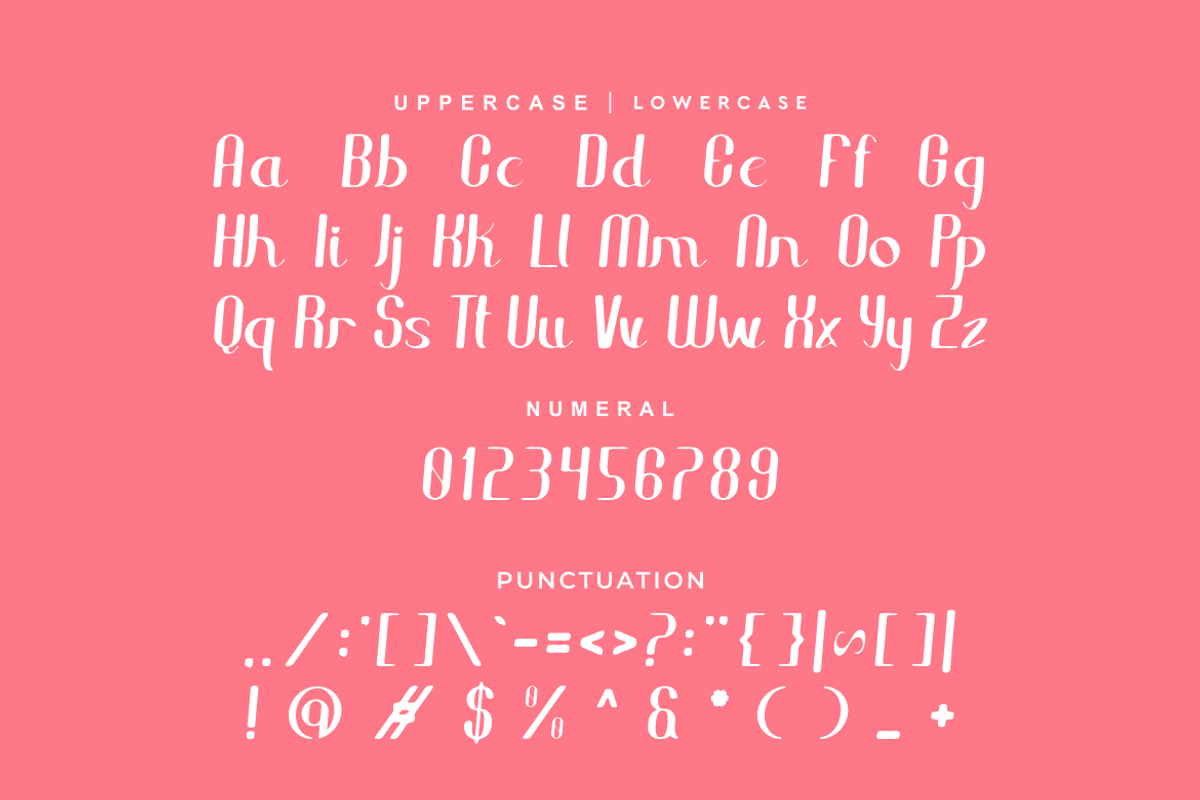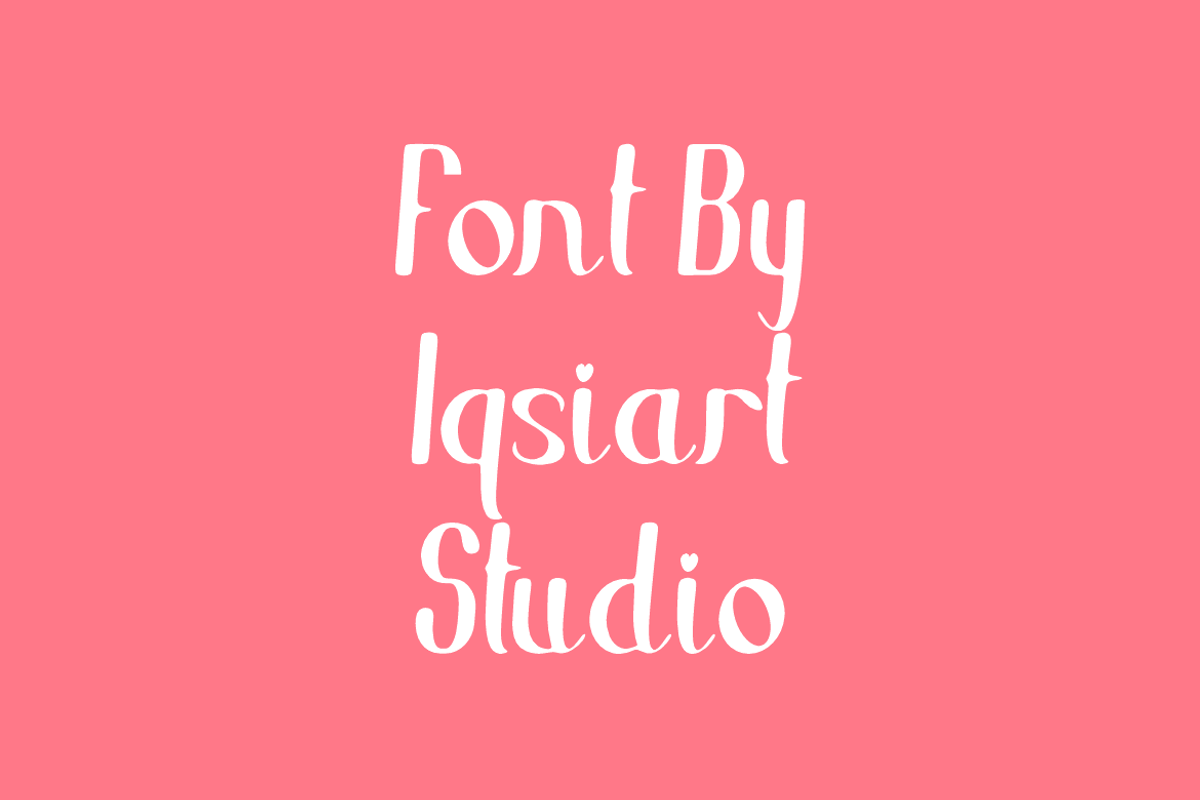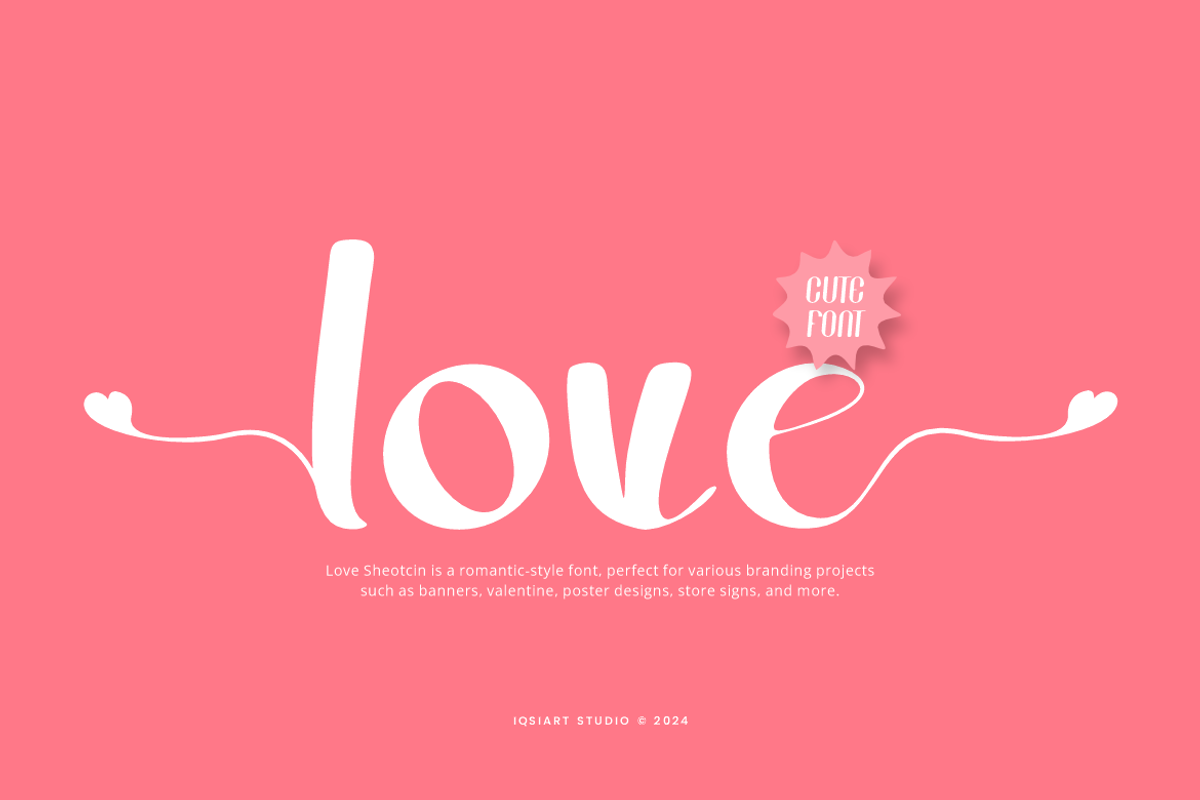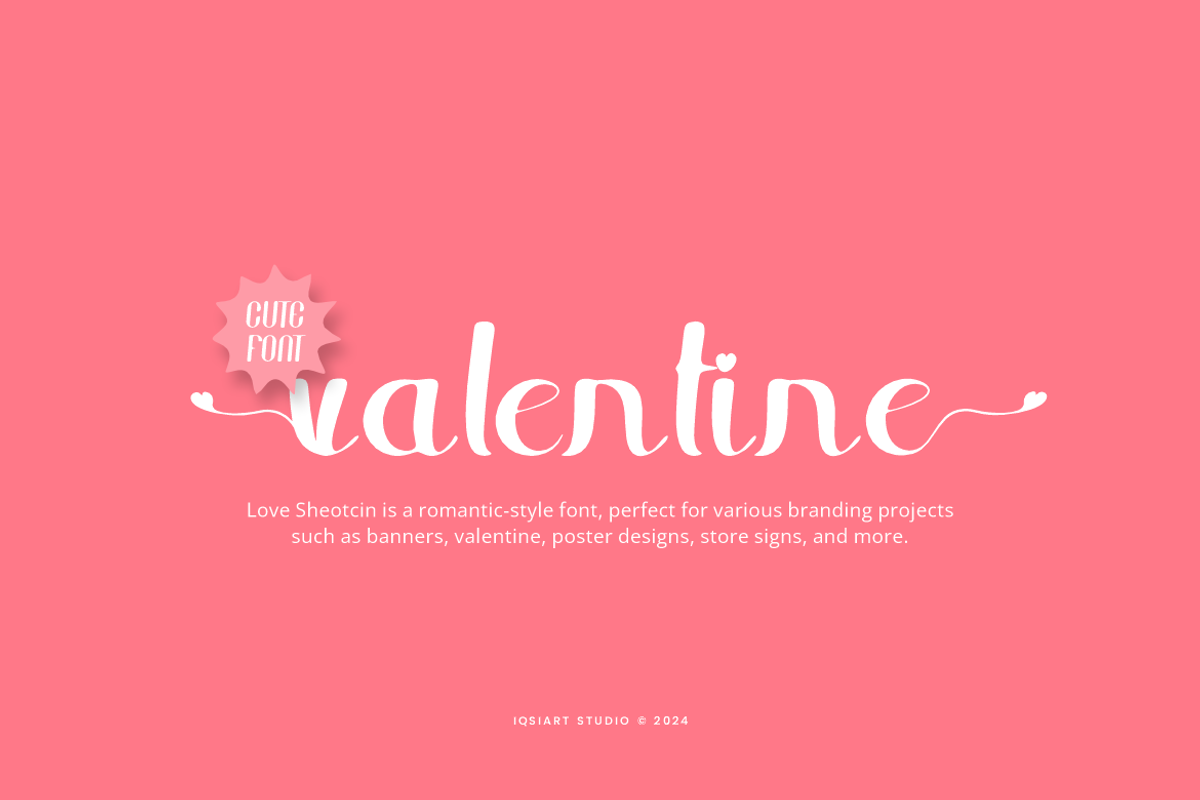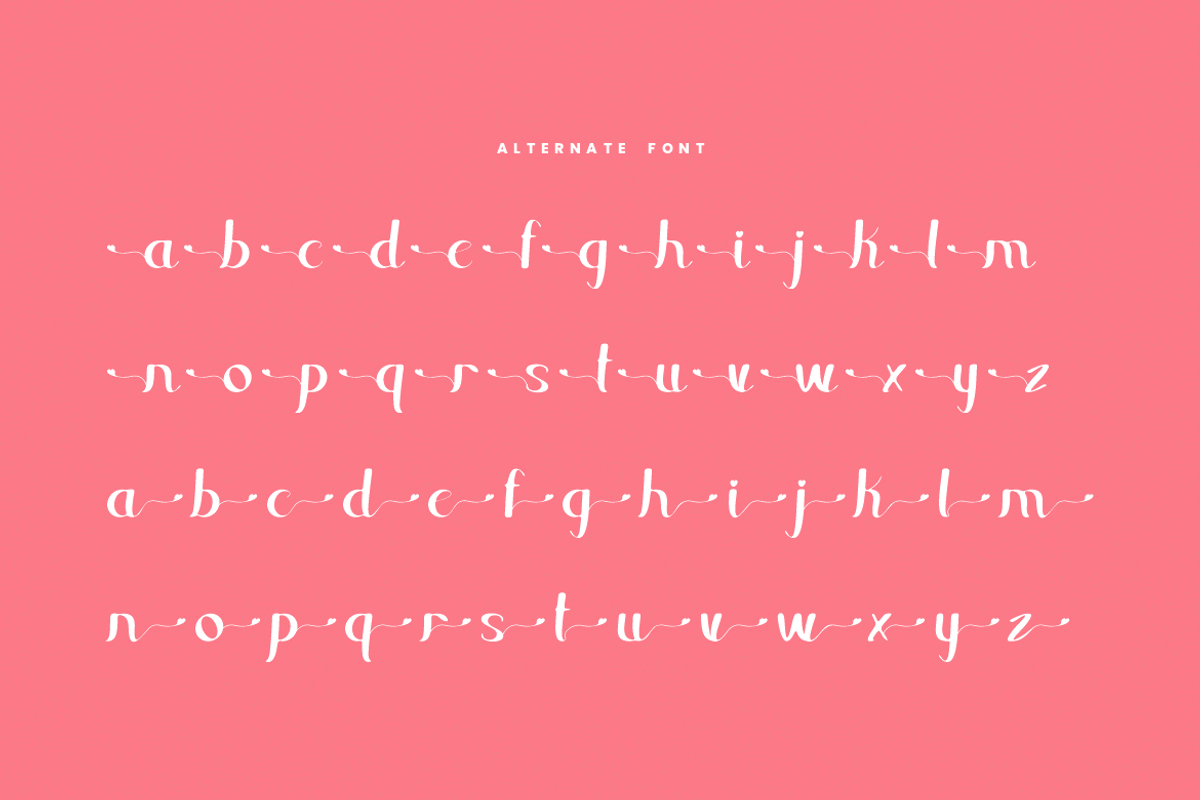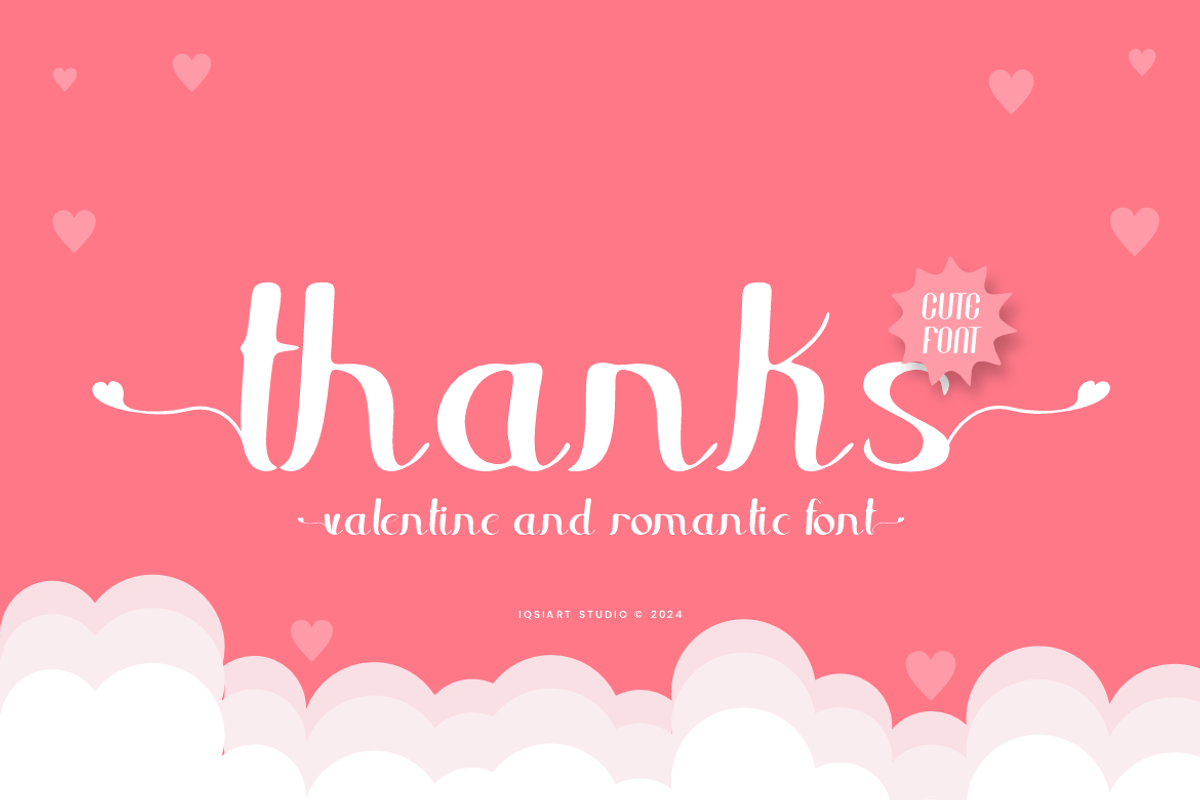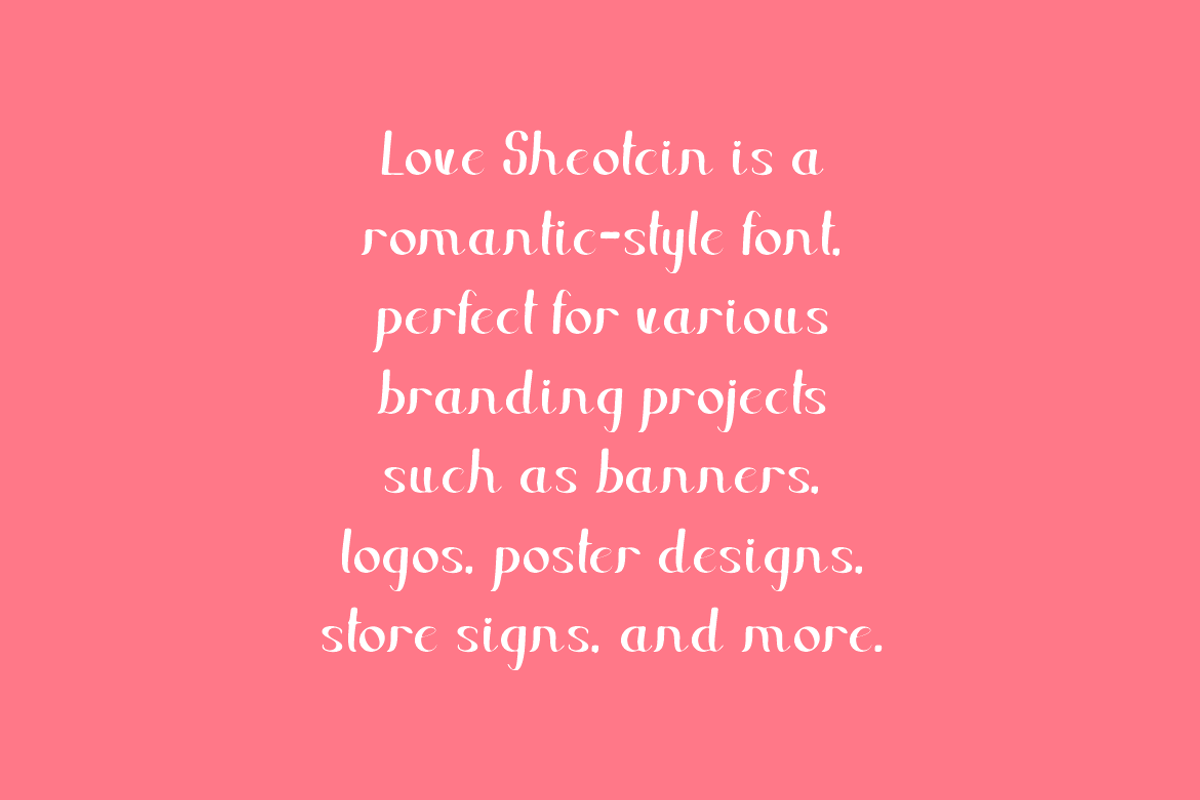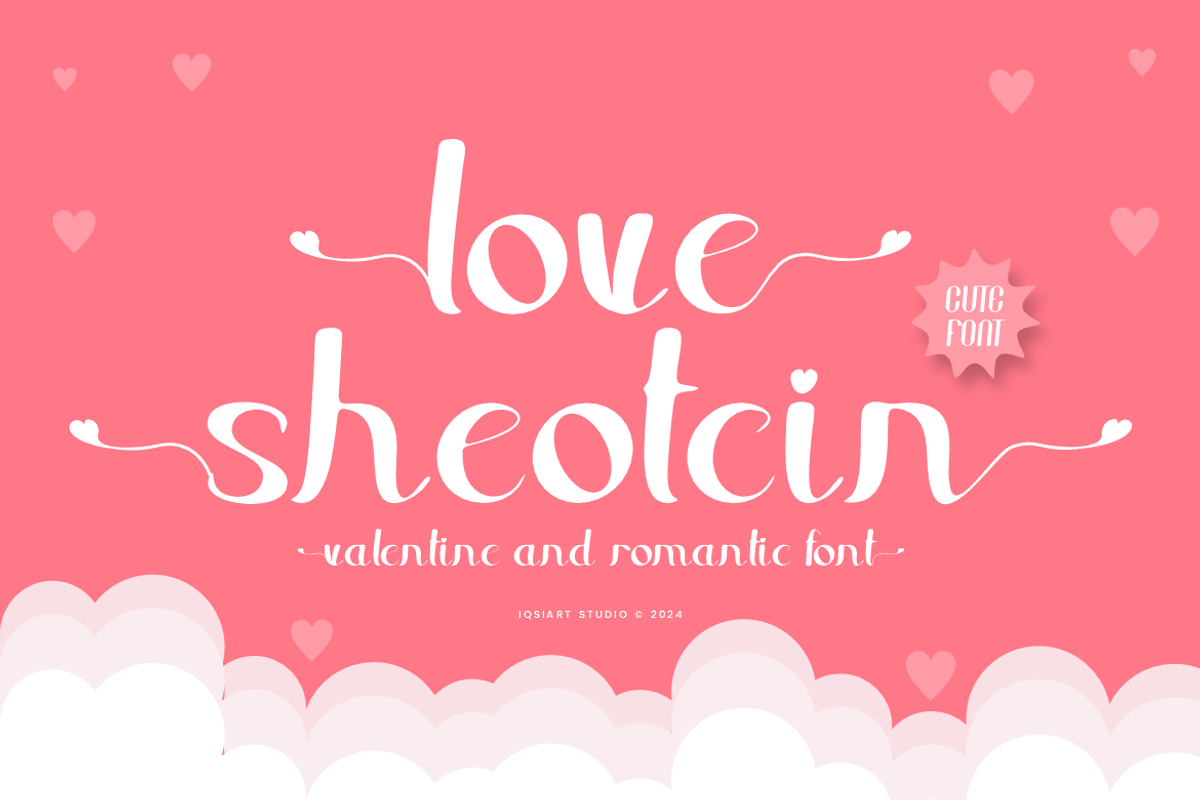
Love Sheotcin - Valentine Font
Love Sheotcin Font is a handdrawn and authentic display typeface that suits a variety of design needs. We offer a wide range of themes and font styles — visit our profile to explore more and find the perfect style for your project.